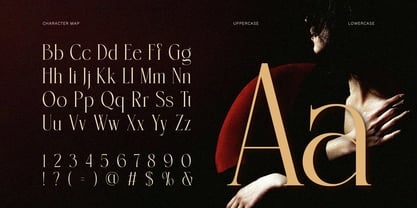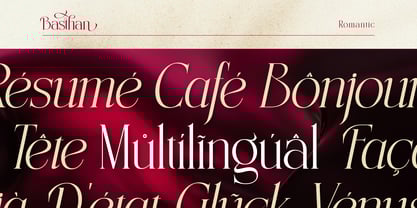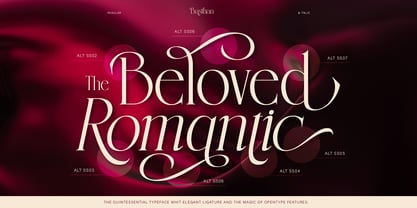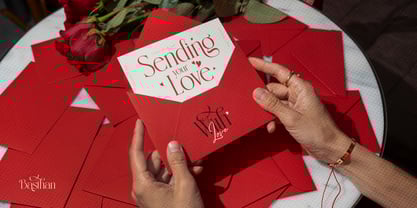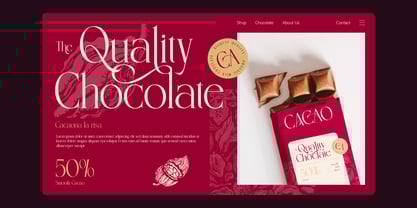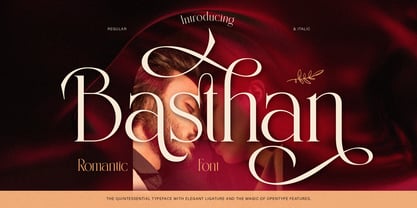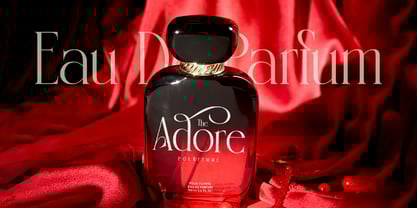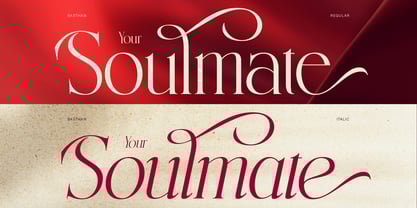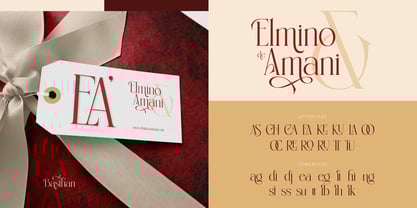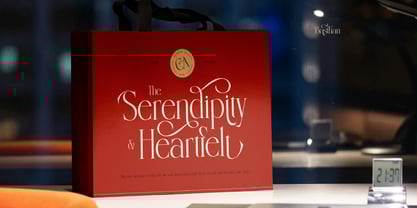
Basthan
The Basthan Font Family was designed by Eric Kurniawan and published by Burntilldead. Basthan contains 2 styles and family package options. More about this family
Introducing, Basthan, a mesmerizing the beauty of serif font that has elegance and luxury aura. Inspired by vintage typography, with aesthetic alternates and ligatures make it more dramatic. The refined curves and italic style create a timeless look and intrigue. Including multilingual support, make it suitable for international project design. Perfect for luxurious branding, fashion labels, beauty product, editorial design, wedding invitation, jewelry, headlines and any design project that need touch of luxury and dramatic.
Features:
• A - Z set (Uppercase & Lowercase)
• Number
• Punctuation
• Ligatures
• Alternates
• Multilingual
• Basthan Characters Map